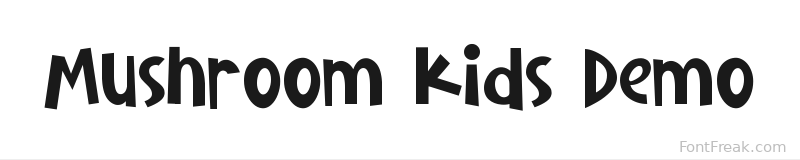
Mushroom Kids Demo
Mushroom Kids Demo by Noah Type is a delightful display font that perfectly captures the whimsical essence of childhood. This font is characterized by its playful and rounded letterforms, making it an ideal choice for projects aimed at children or those evoking a sense of nostalgia. The stroke weight is consistent, providing a friendly and approachable vibe, while the lack of sharp edges contributes to its soft, inviting appearance. The spacing between characters is well-balanced, ensuring readability while maintaining a fun aesthetic.
This font is particularly well-suited for various applications. It shines in children's book covers, where its engaging style can attract young readers. Additionally, it works wonderfully for birthday party invitations, adding a festive touch that appeals to both kids and parents. Restaurant menus aimed at families can benefit from its playful nature, encouraging a fun dining atmosphere. Furthermore, it can be effectively used in educational materials, such as posters or worksheets, to grab the attention of students.
The target audience for the Mushroom Kids Demo font includes graphic designers looking to add a unique touch to their projects, small business owners in the children's market, and content creators who want to engage a younger audience. Its versatility makes it a valuable addition to any designer's toolkit.
What sets the Mushroom Kids Demo font apart is its ability to evoke joy and creativity, making it perfect for any project that seeks to inspire fun and imagination. With its freeware license, designers can easily access the Mushroom Kids Demo font free download, making this charming typeface an excellent resource for all kinds of creative endeavors.